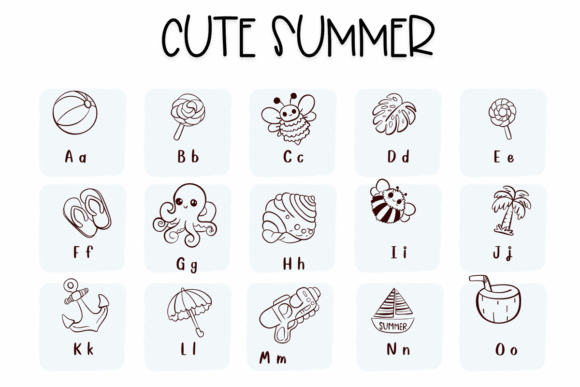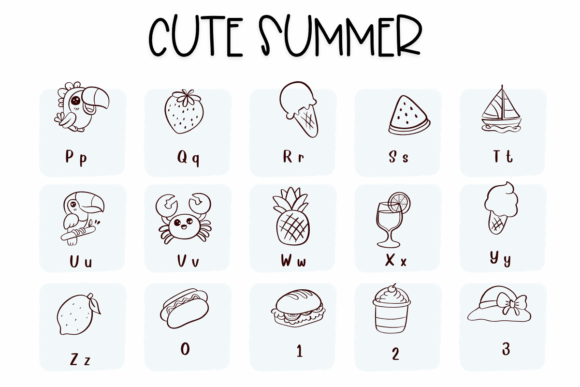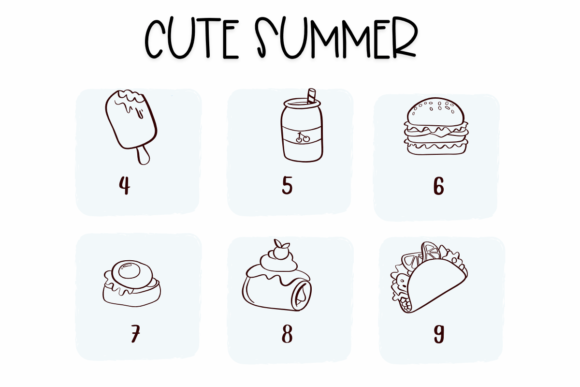
Introduction to Cute Summer Font
β€œCute Summer” is a fun, playful font filled with adorable summer-themed doodles like suns, seashells, and ice creams.
It adds a touch of sunshine and whimsy to your text, perfect for brightening up any summer project .
Cute Summer Font offers exceptional quality and versatility, making it a valuable addition to your design toolkit. Whether you’re creating for personal projects or commercial use, Cute Summer Font delivers professional results.